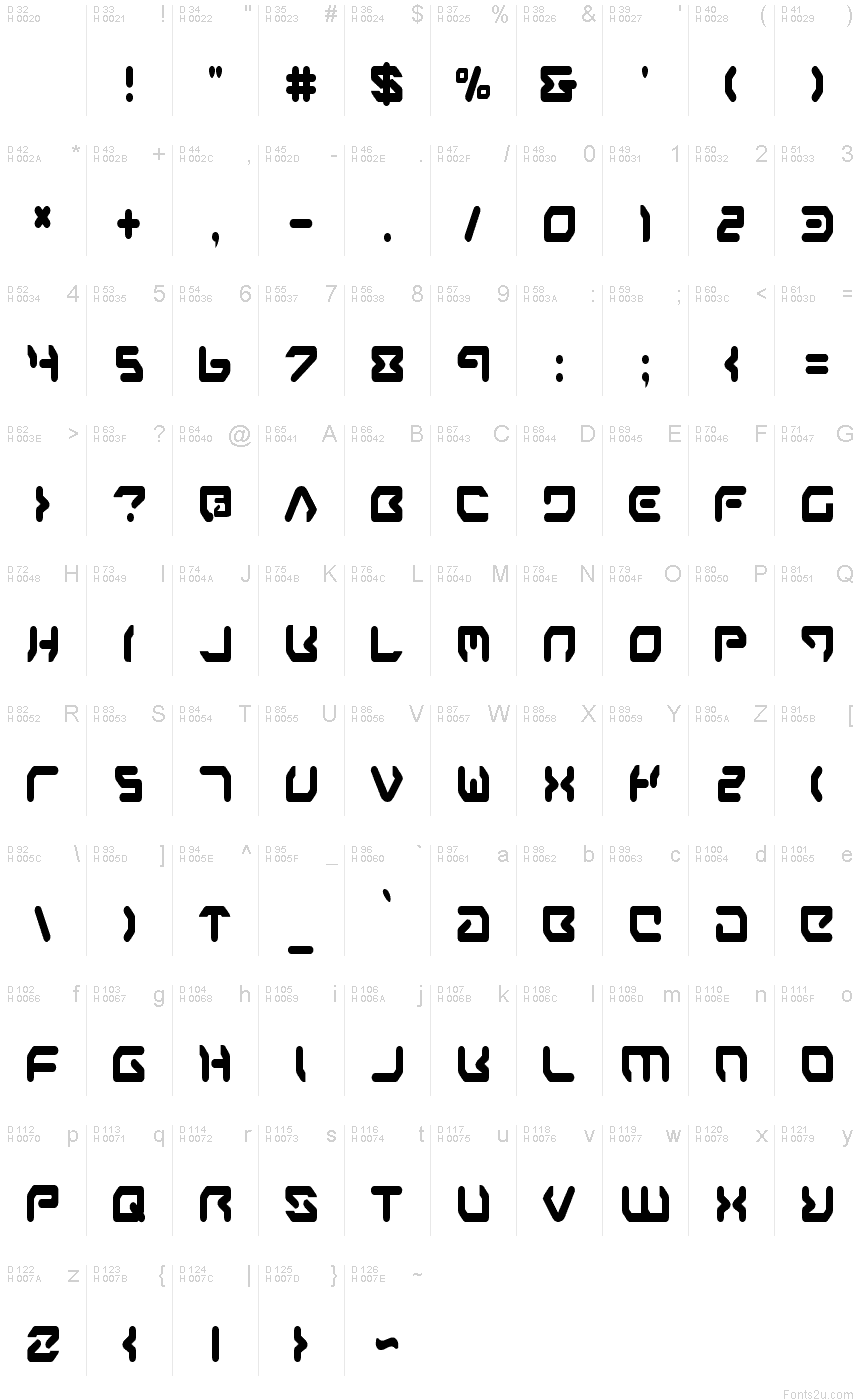
Airstrip One Condensed
Airstrip One Condensed font by Iconian Fonts is a free futuristic display typeface that looks like it was stamped straight onto the hull of a spacecraft. Its narrow, squared forms, cropped corners, and bold, inky strokes create a tight, mechanical rhythm that feels fast and engineered. The condensed width lets you pack long titles and names into narrow spaces without losing that chunky, sci‑fi presence.
Using Airstrip One Condensed, you can give game logos, tech posters, esports branding, sci‑fi book covers, streaming overlays, and interface mockups a sharp, industrial edge. This free font shines when set in all caps and given room to breathe with generous letterspacing. Pair it with a clean geometric sans from the Airstrip One family for body text to keep your layouts readable while the headlines do the heavy lifting.